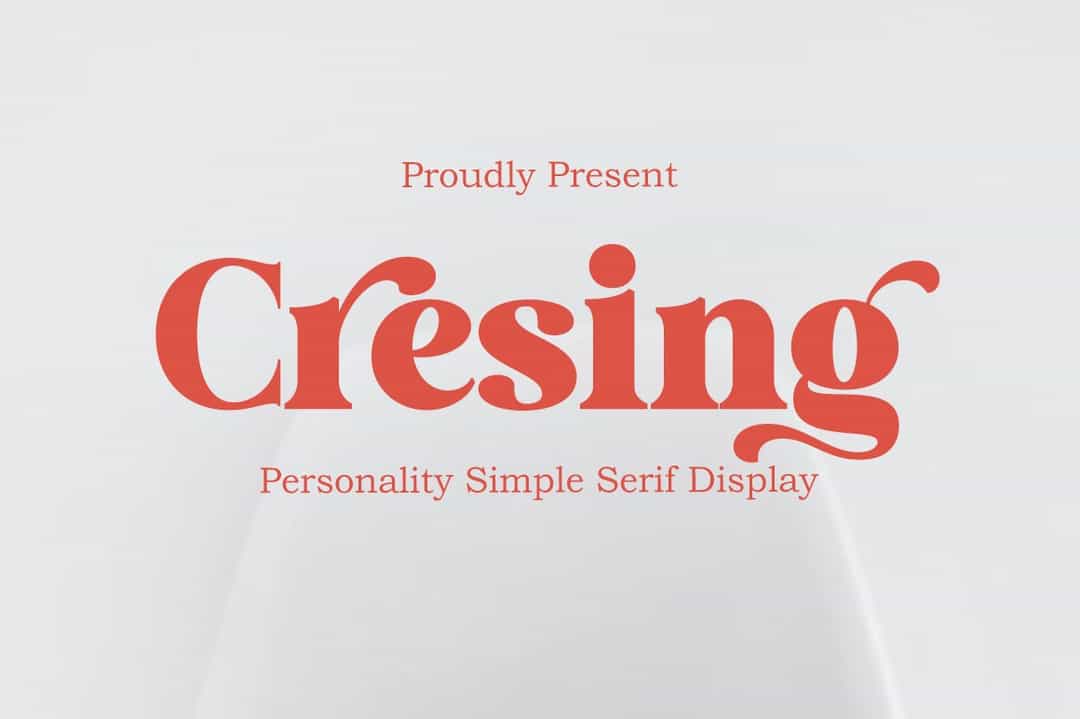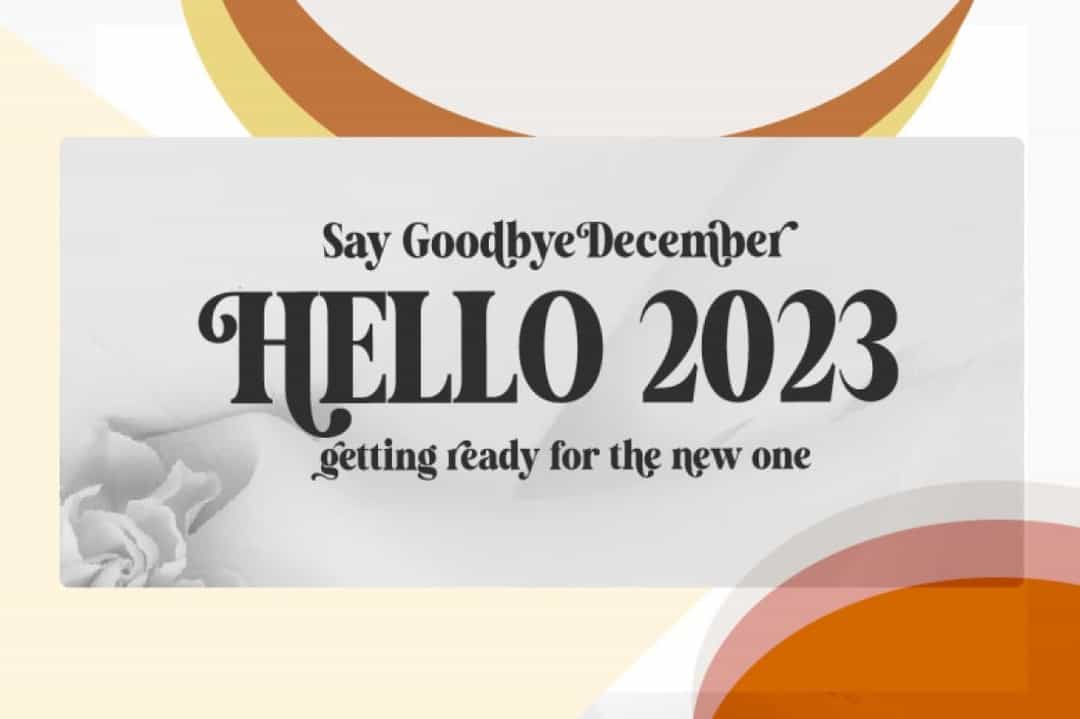
Cresing is a contemporary serif typeface ideal for posters, branding T-shirts and invitations as well as designs for children or editorial layouts. It comes in multiple designs with fasteners included for added flexibility.